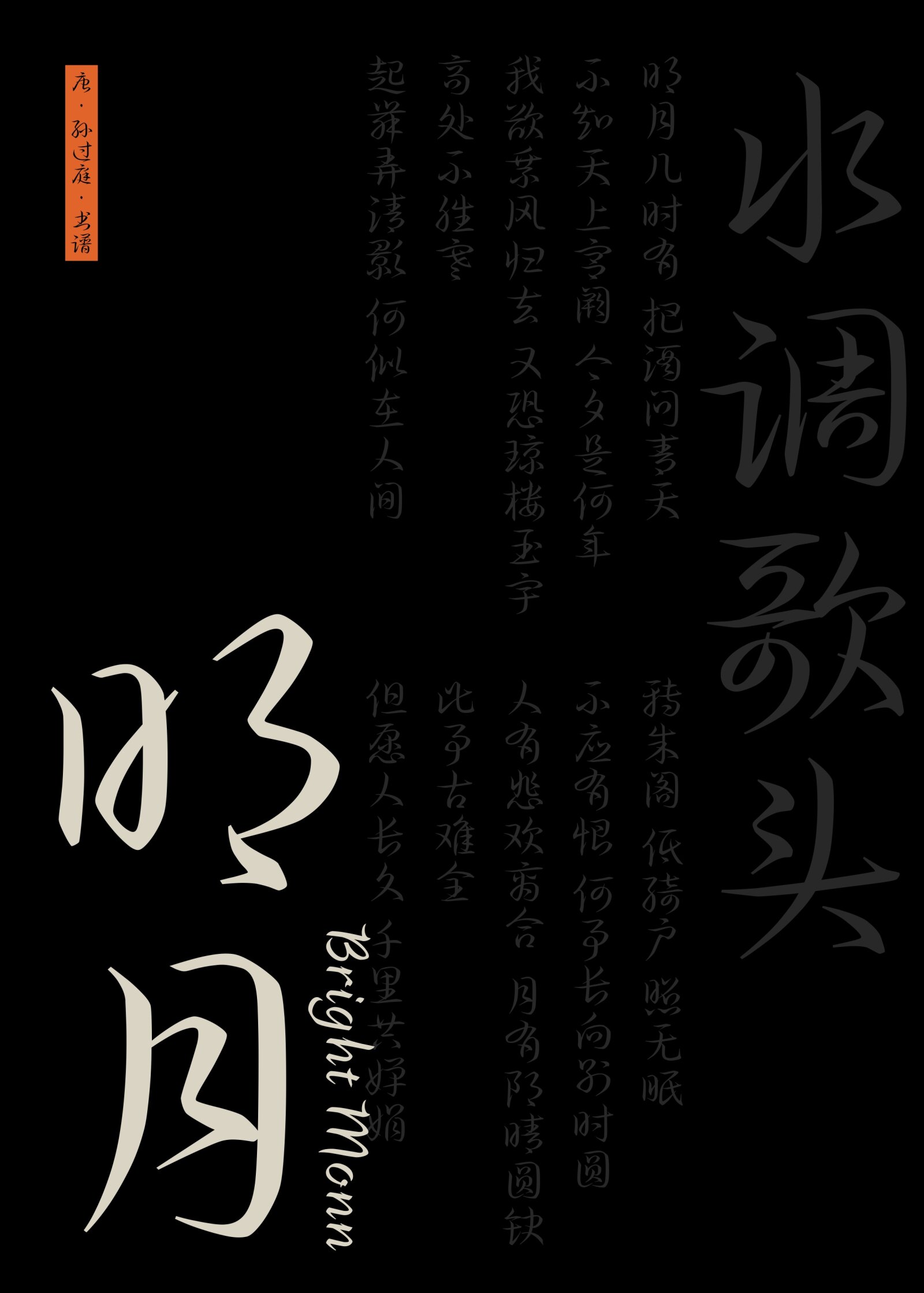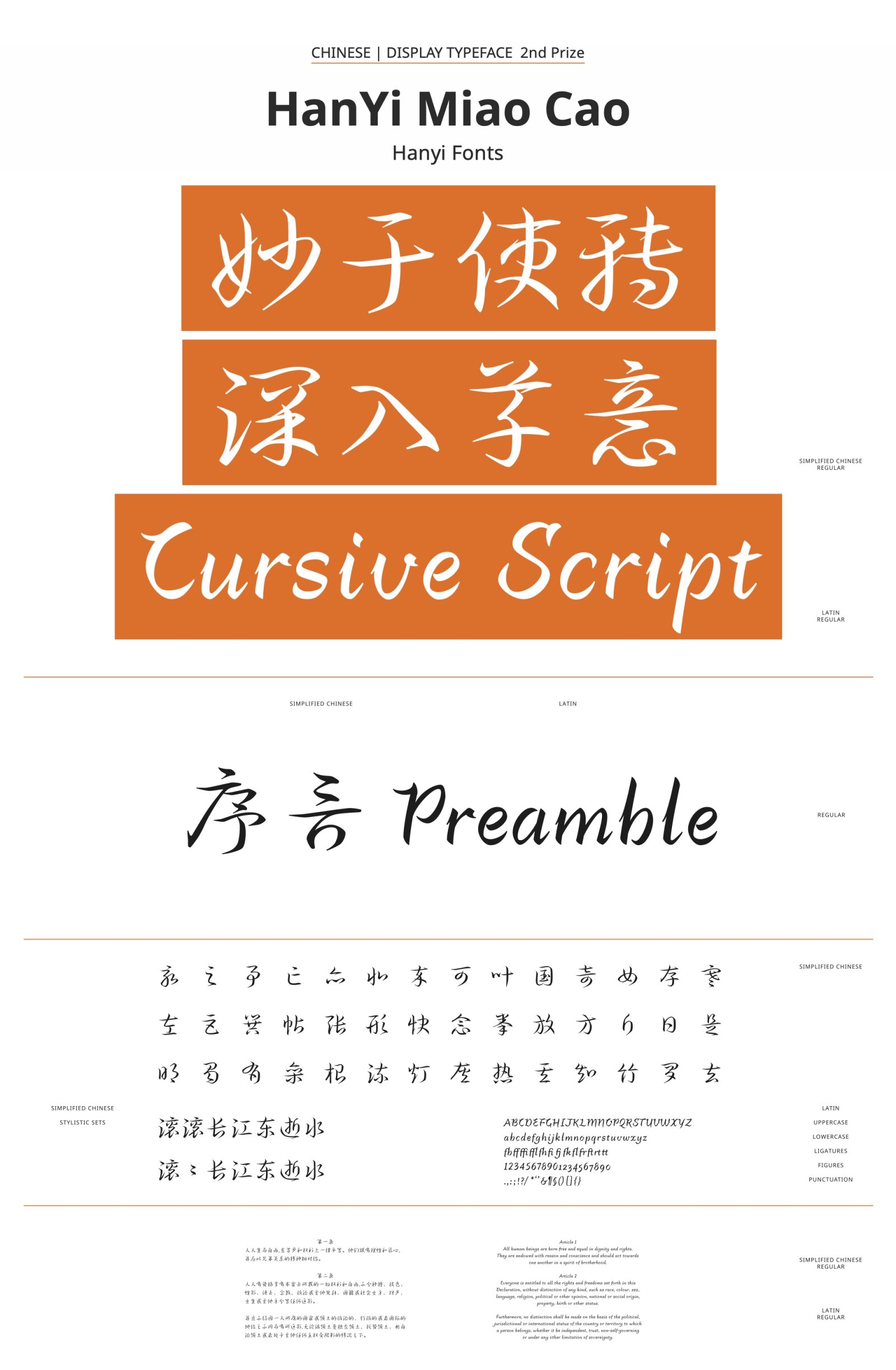
HanYi Miao Cao
by Hanyi Fonts
Chinese
This typeface is meticulously crafted, drawing inspiration from Chinese cursive script while adhering to contemporary font production standards. It exudes a sense of dynamism and flair, capturing the sharpness inherent in cursive scriptwriting. Despite its rather small body frame, the spreading surface frame ensured stability of the center of gravity among characters. The strokes are coherent, and though characters are not connected, enhancing legibility and the overall clarity remains excellent. The style features a fresh and handsome stroke design, blending the allure of dashing lines with ample strength, digitally encapsulating the elegance of handwritten script. Ideal for cultural and artistic contexts, including exhibition posters, books, and albums.